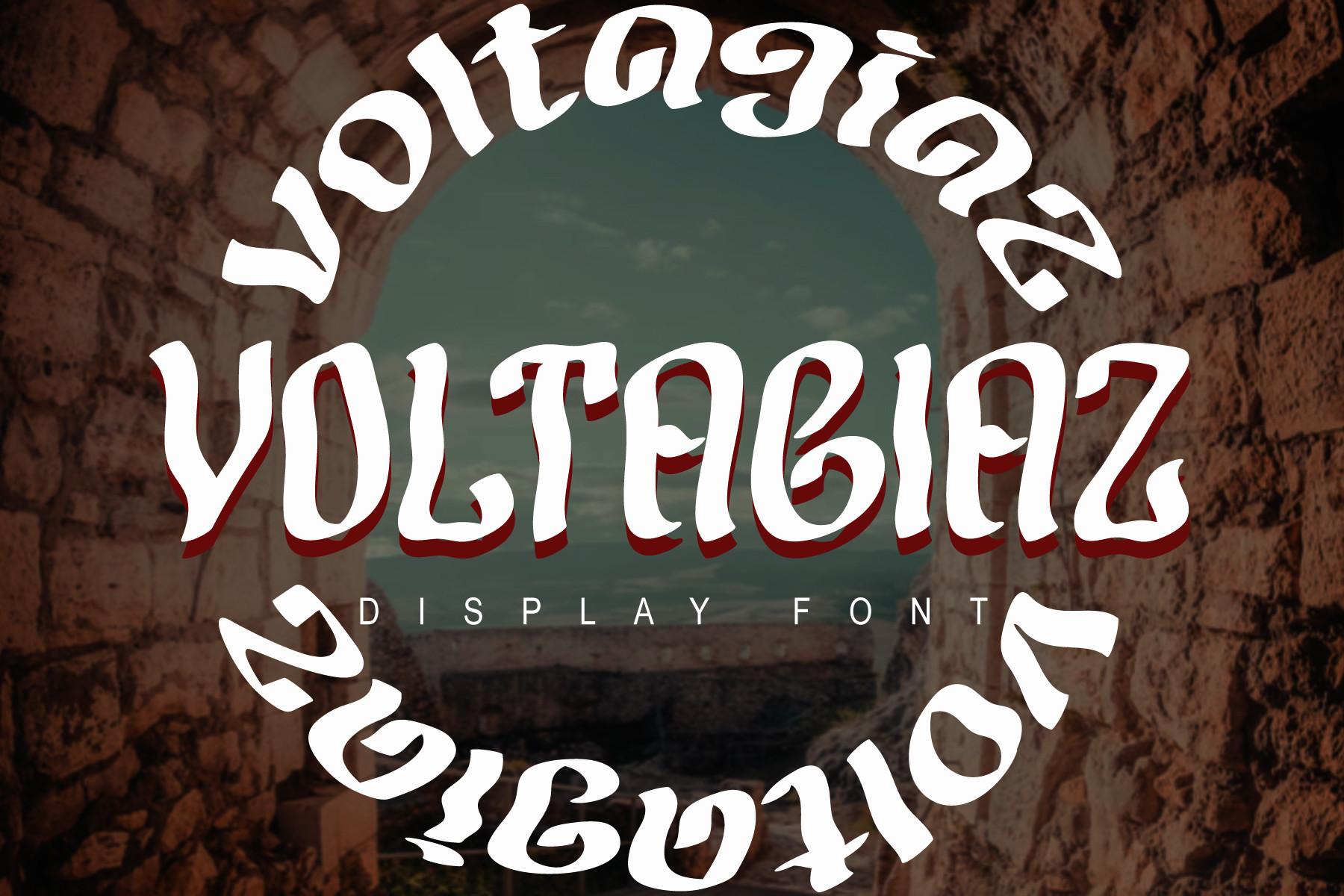
Voltagiaz Font Description
Voltagiaz is a cool and bold display font. You can use it on wedding invitations, thank you cards, quotes, greeting cards, logos, business cards, and every other design which needs a simple and fun touch. Add Voltagiaz to your most creative ideas, and notice how it makes them come alive!